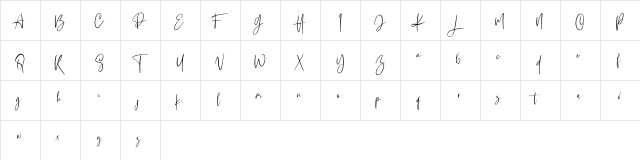
Hardtrack Free Regular
| Foundry | MaulanaCreative |
| Designer | MaulanaCreative |
Design Context for Hardtrack Free Typeface
Hardtrack Free is a composed and adaptable typeface that performs quietly and consistently across a wide range of design contexts.